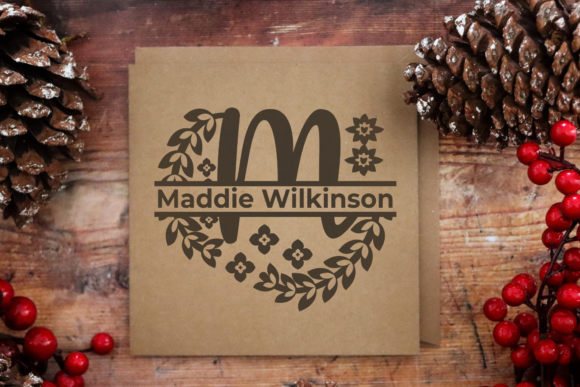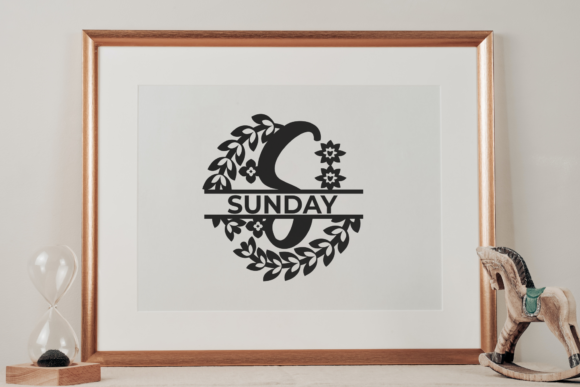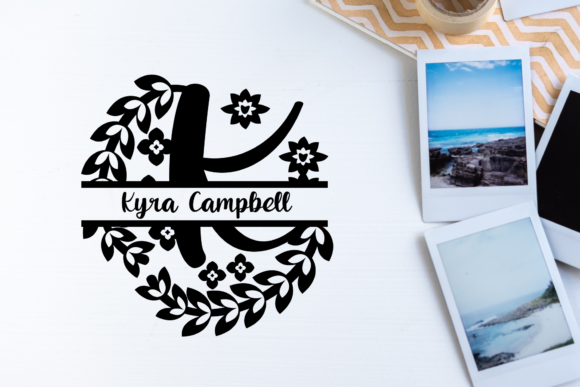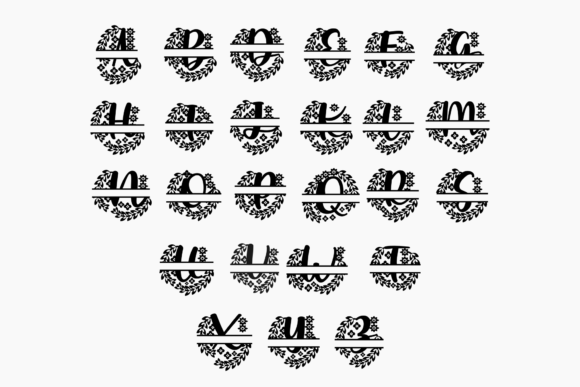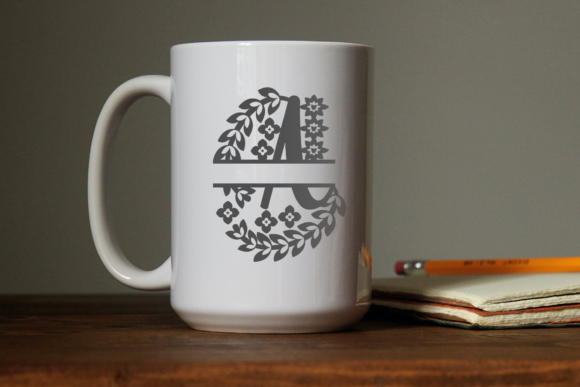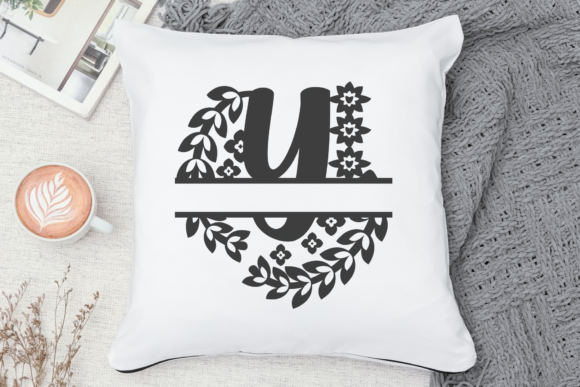
Unlock the Perfect Monogram Style for Your Designs
Do you remember the excitement of creating your first handmade gift for a loved one? The hours spent pouring over craft stores, searching for the perfect embellishments and materials, and the satisfaction of seeing your creation come to life. For many of us, crafting is more than just a hobby – it’s a way to express ourselves and show our loved ones we care.
When it comes to adding a personal touch to your craft projects, the right font can make all the difference. That’s where the All Caps Split Monogram Font comes in – a stylish decorative font that’s perfect for printing or sublimating on shirts, invites, cards, gift cards, and gift tags. This authentic-looking font is a valuable addition to any designer’s toolkit, allowing you to add a realistic and personal feel to your designs.
All Caps Split Monogram Font Key Features
- Font Style: Monogram, All Caps, with split letters and decorative elements.
- Unique Characteristics: The split monogram design adds a touch of elegance and sophistication, making it ideal for high-end branding, invitations, and special events.
- Font Pairing: The font can be paired with serif and sans-serif fonts to create a unique and visually appealing combination.
All Caps Split Monogram Font Review
I recently had the chance to work with the “All Caps Split Monogram Font” and I must say it’s a unique and eye-catching choice for monogram designs. Here’s my honest review.
Eye-catching design: The split monogram design is sure to grab attention and stands out from more traditional monogram fonts.
Customization options: The font offers various customization options, allowing designers to experiment with different layouts and colors.
High-quality output: The font renders well in various resolutions and sizes, making it suitable for a wide range of applications.
Limited flexibility: While the font offers customization options, it’s not as versatile as some other monogram fonts, making it less suitable for complex designs.
Lack of script options: The font is primarily designed for uppercase letters, leaving script options limited.
Dependence on design context: The font’s effectiveness largely depends on the design context, and it may not work as well in certain situations.
Overall, the “All Caps Split Monogram Font” is a great choice for designers looking for a unique and eye-catching monogram design. While it has some limitations, it’s a high-quality font that offers a lot of potential for creative expression. With careful planning and design, this font can add a touch of sophistication and elegance to any project.
The All Caps Split Monogram Font is ideal for:
1. Creating custom monograms or initials.
2. Designing wedding invitations or stationery.
3. Adding a touch of elegance to business cards or letterheads.